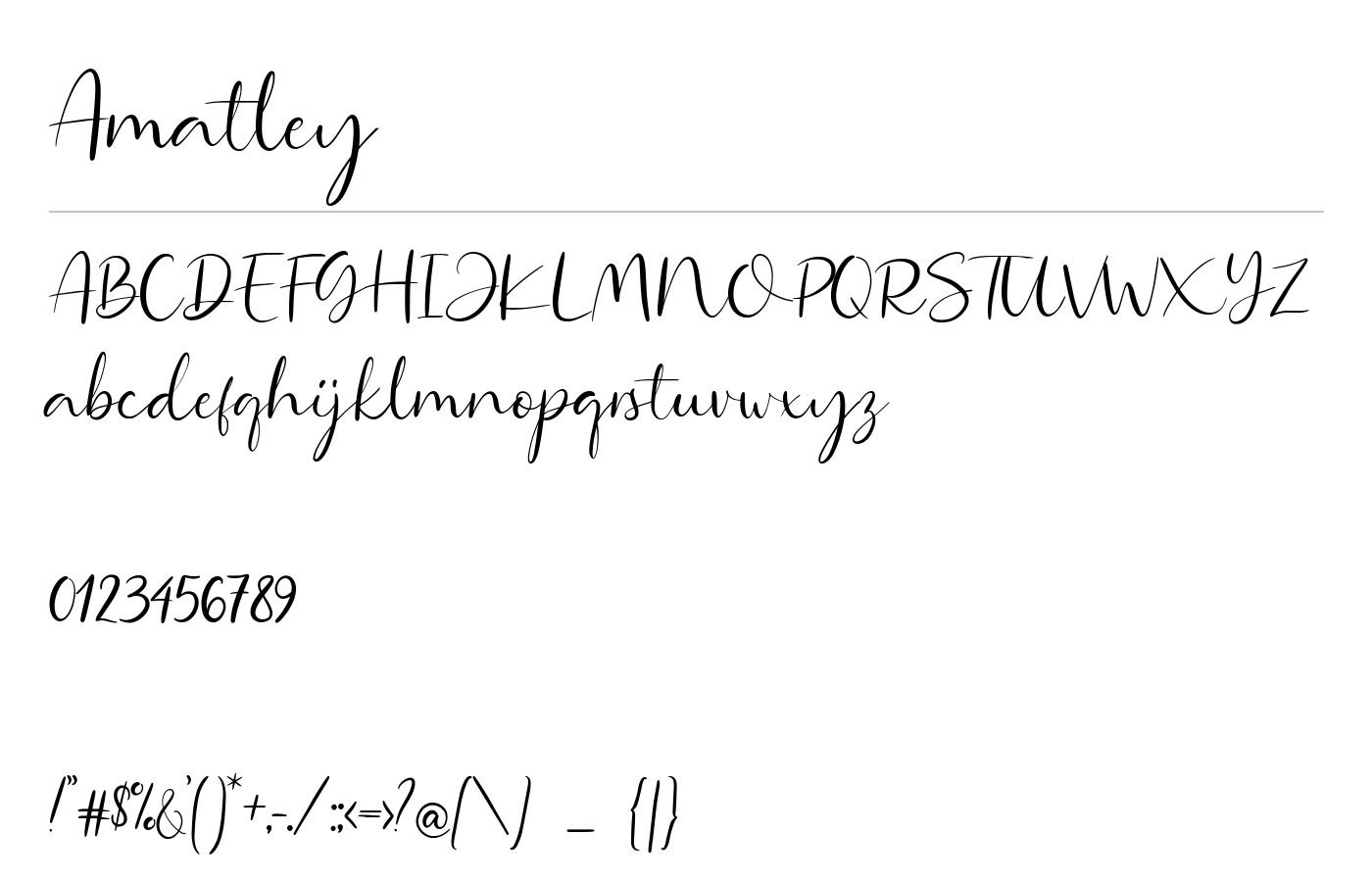
Amatley is a delicate, handwritten script font with a light weight and elegant, flowing strokes that create a refined yet approachable feel. Its tall x-height and slender letterforms make it ideal for classy branding, invitations, and feminine design projects requiring a modern, graceful touch. This font shines in logos and headlines where a personal, sophisticated style is desired.
Amatley Font
About Amatley Font